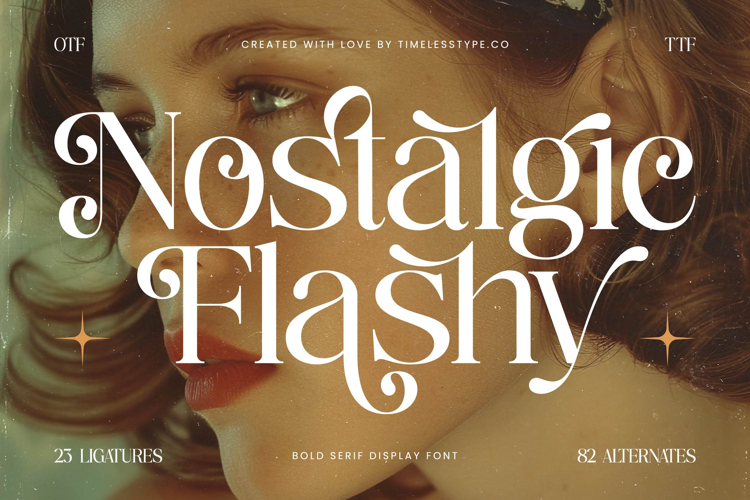
Nostalgic Flashy - Bold Serif Display Font
Nostalgic Flashy Italic
Nostalgic Flashy
Nostalgic Flashy - Bold Serif Display Font
Nostalgic Flashy is a bold serif display font that exudes vintage sophistication with a touch of modern elegance. Its high-contrast strokes, ornate swashes, and decorative terminals create a distinctive aesthetic that is both timeless and stylish. Designed with 23 ligatures and 82 alternates, Nostalgic Flashy provides designers with endless creative options, making it ideal for crafting expressive, refined, and unforgettable typography.
This font is especially impactful in headline typography, where its bold weight and ornamental details capture attention immediately across posters, magazine covers, and editorial layouts. In branding and logo design, Nostalgic Flashy communicates luxury and creativity, making it an excellent choice for fashion houses, beauty brands, lifestyle products, and boutique businesses seeking a glamorous identity. Its elaborate details also make it ideal for packaging design, particularly for cosmetics, perfumes, wine, and gourmet products where elegance and refinement are crucial.
Nostalgic Flashy thrives in advertising campaigns, event posters, and promotional graphics, where its alternates and ligatures enhance storytelling with stylish flair. On social media content and digital platforms, the font ensures clarity while elevating designs with a chic, editorial-ready look.
Its versatility extends to wedding invitations, certificates, cultural projects, and book covers, where timeless sophistication is key. With multilingual support, Nostalgic Flashy is perfectly suited for both local and international projects, making it a global design asset.
Ultimately, Nostalgic Flashy is more than just a font—it is a visual signature of glamour and refinement. Whether applied to editorials, branding, packaging, or advertising, it guarantees an unforgettable and luxurious typographic experience.